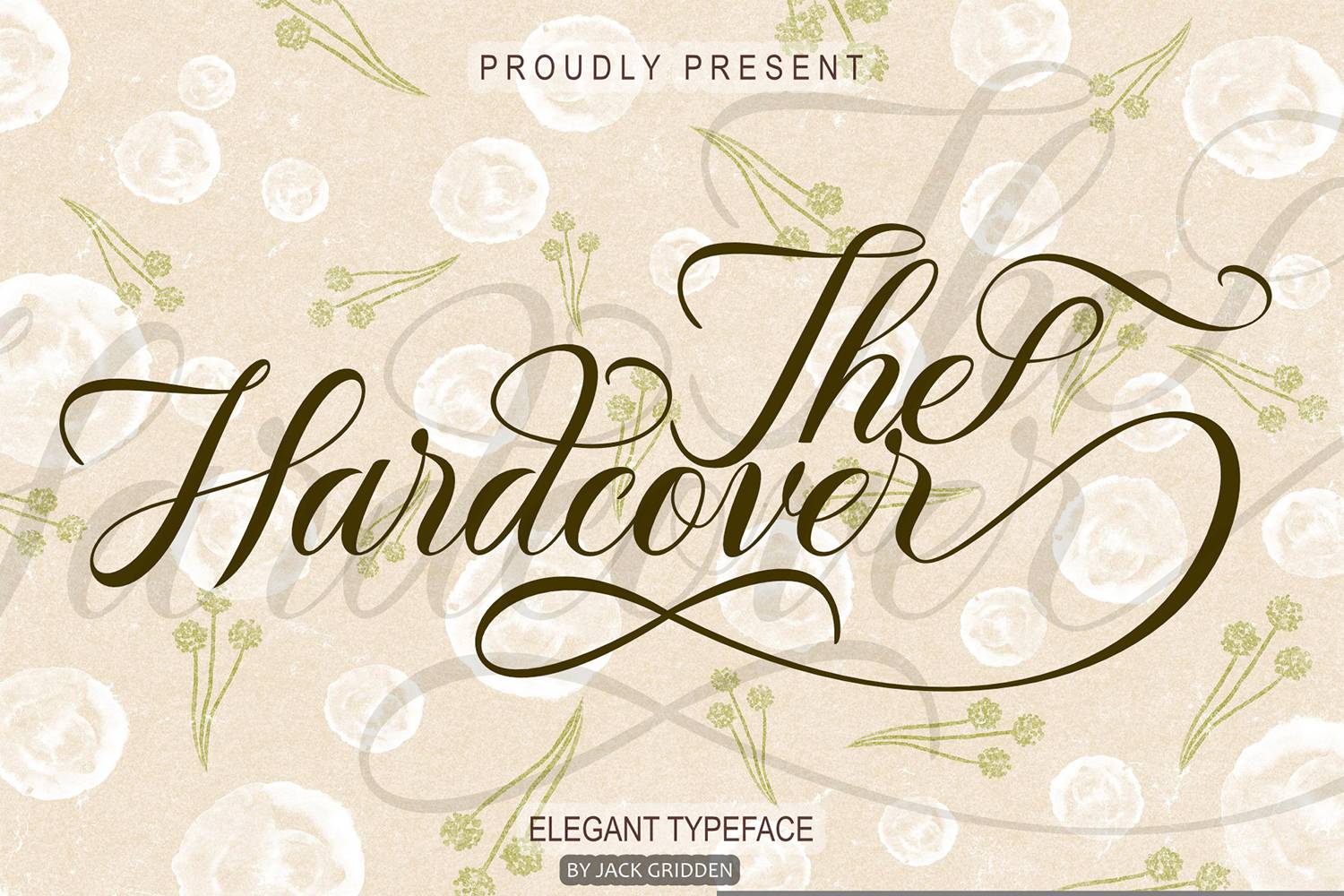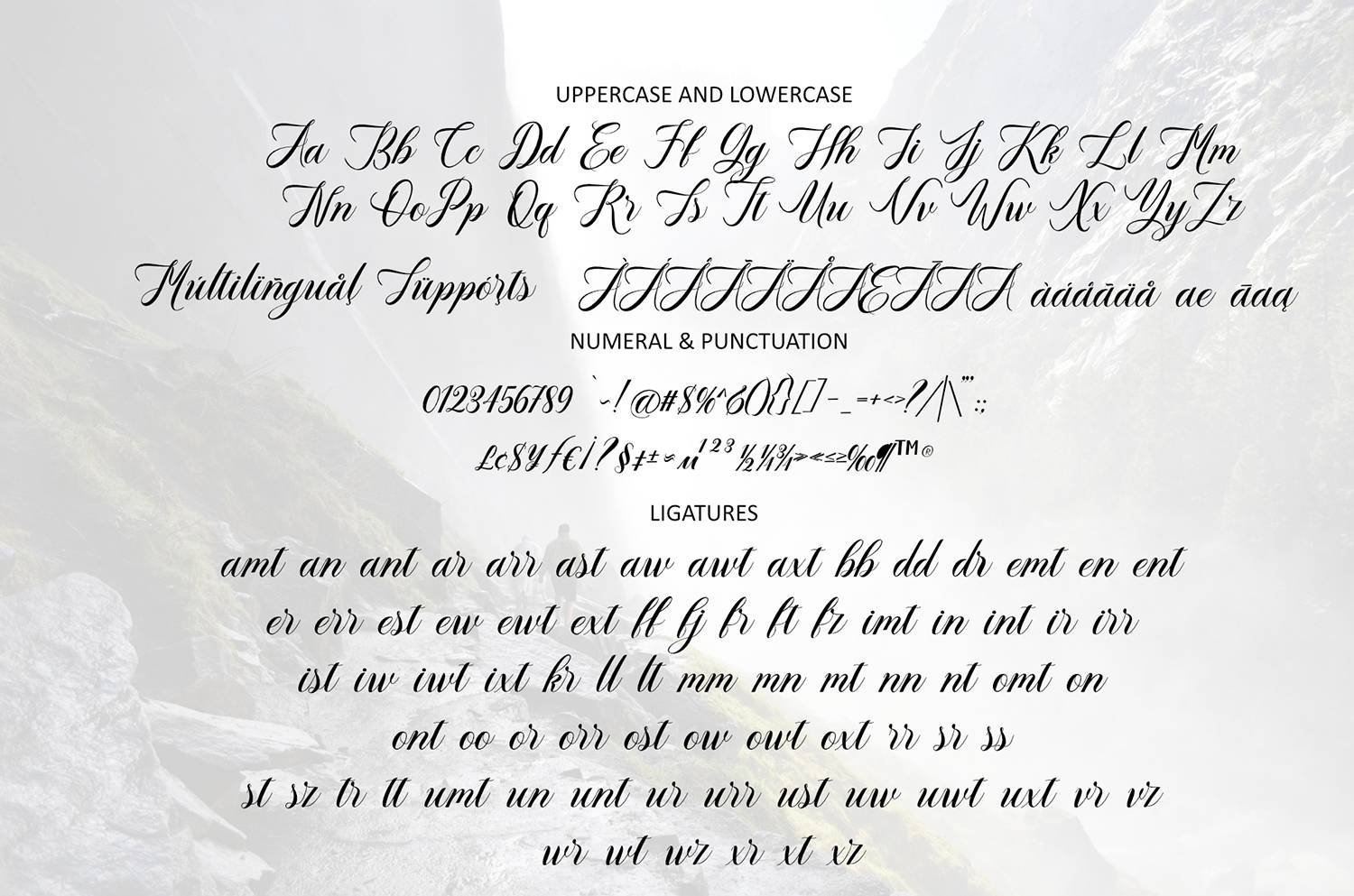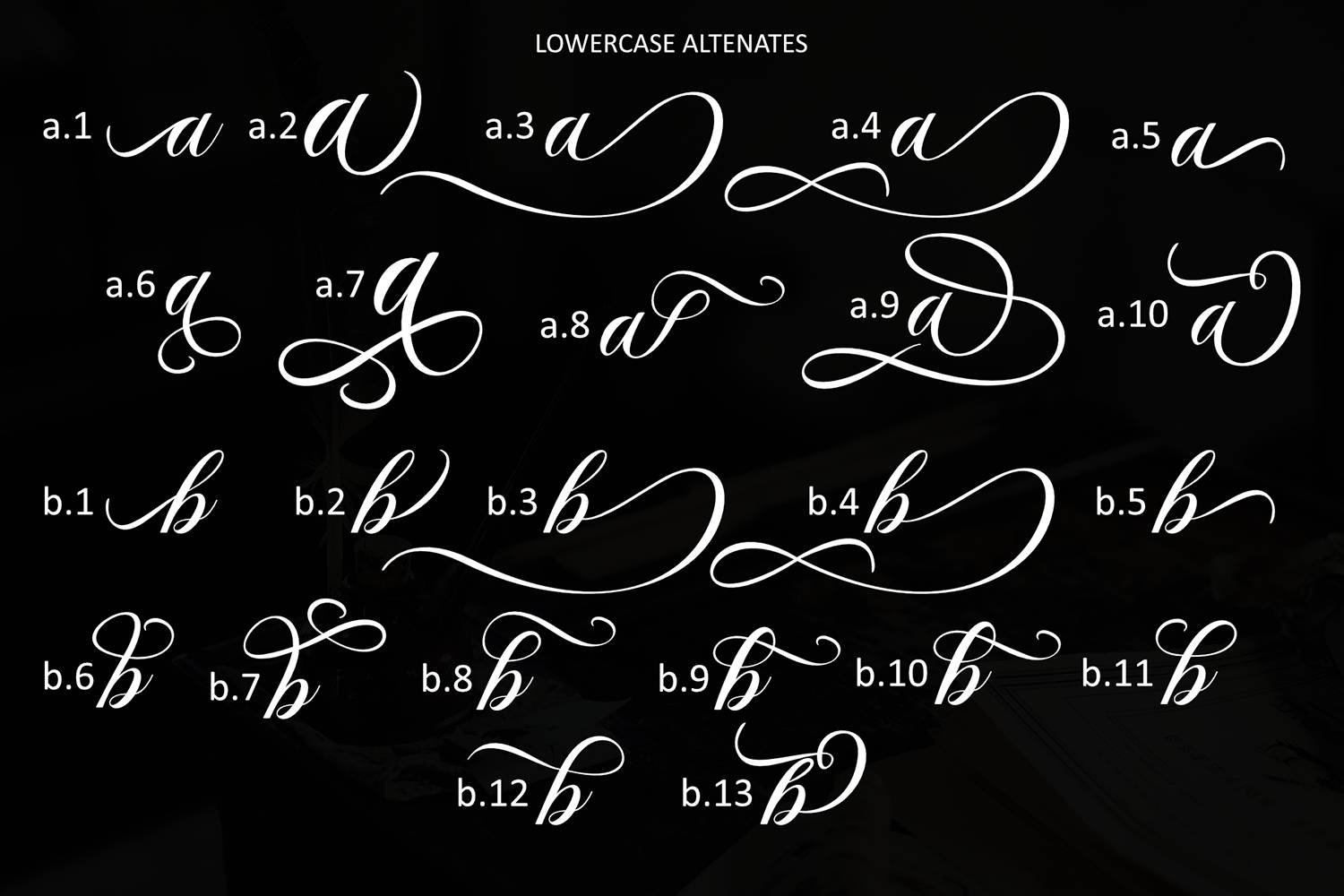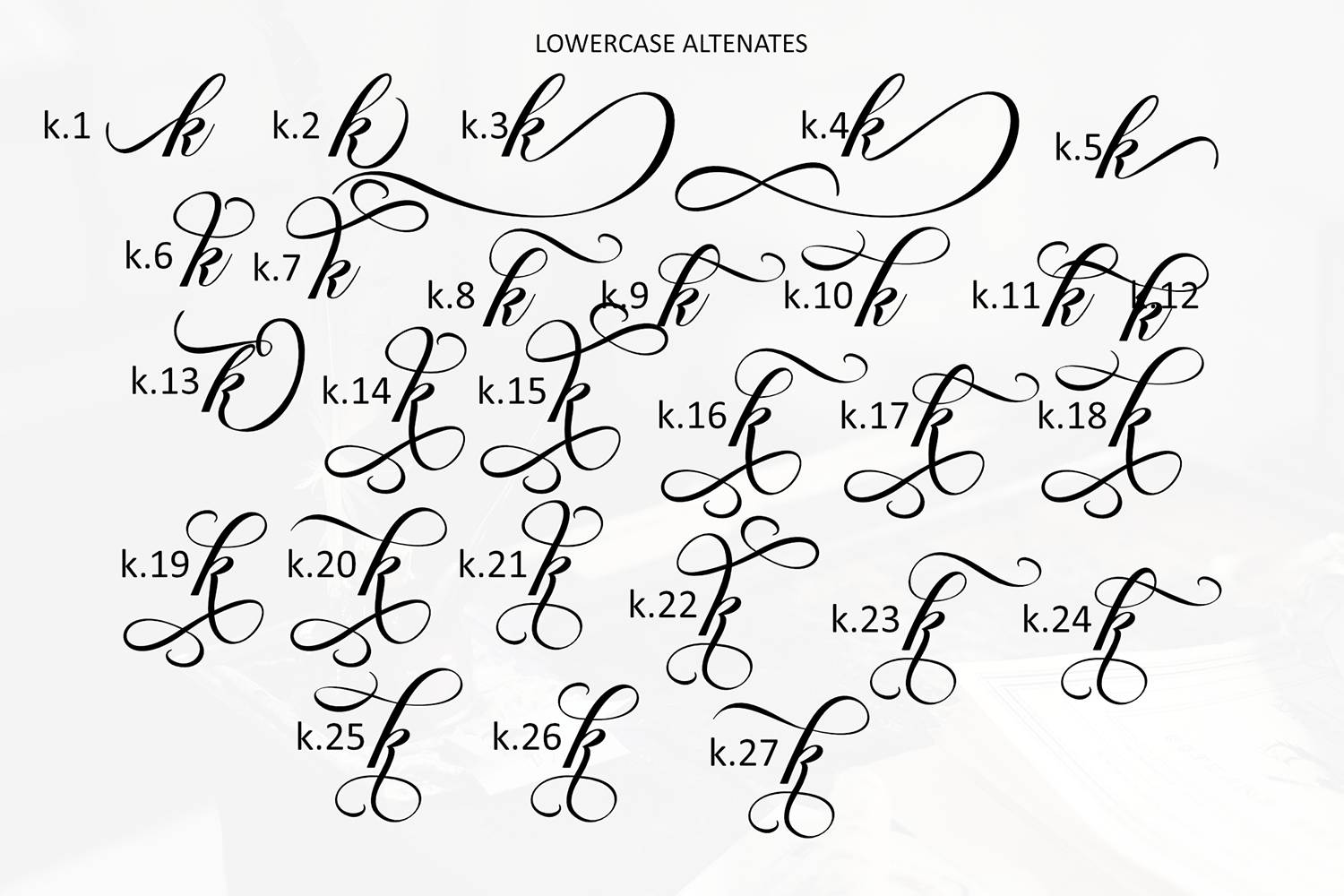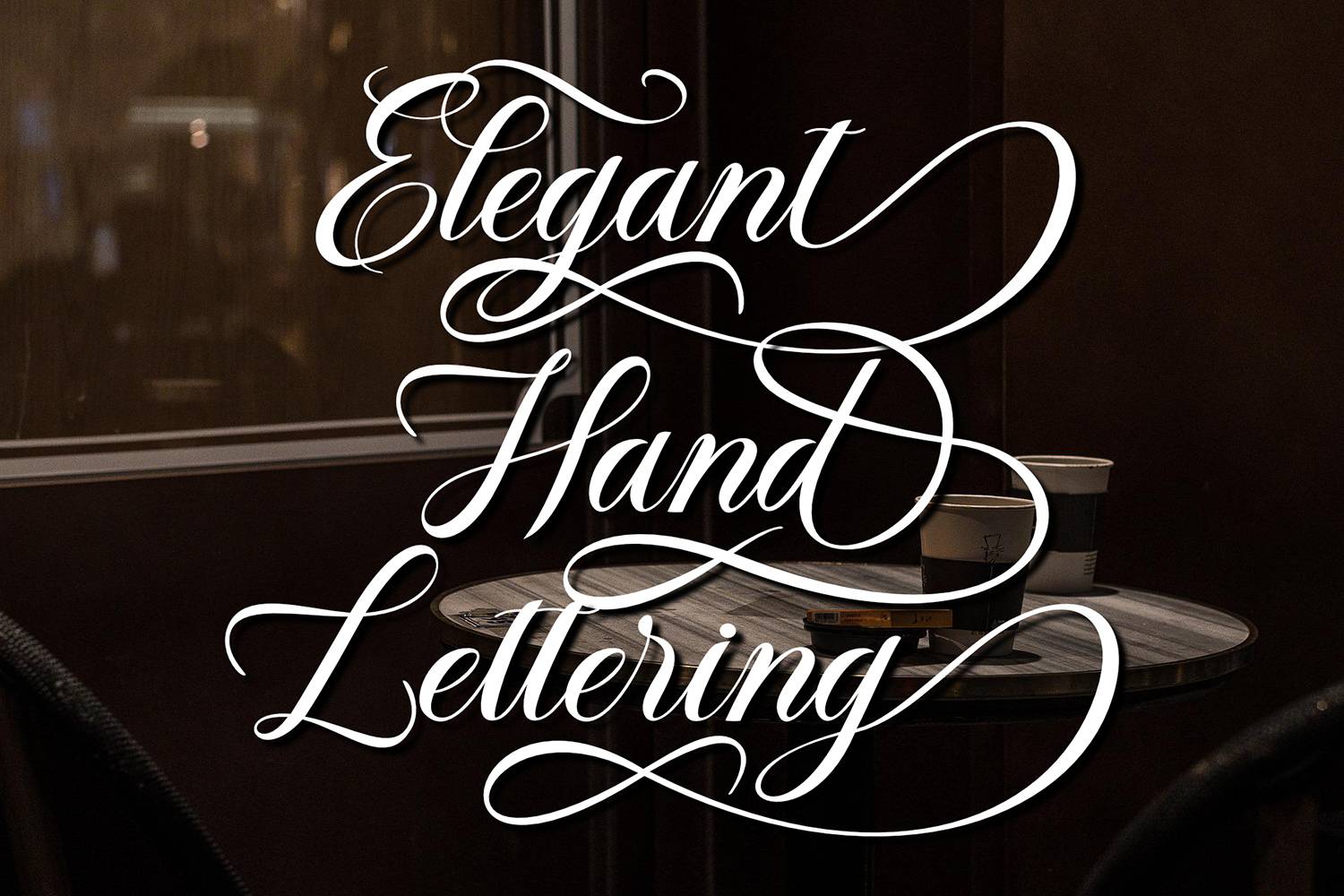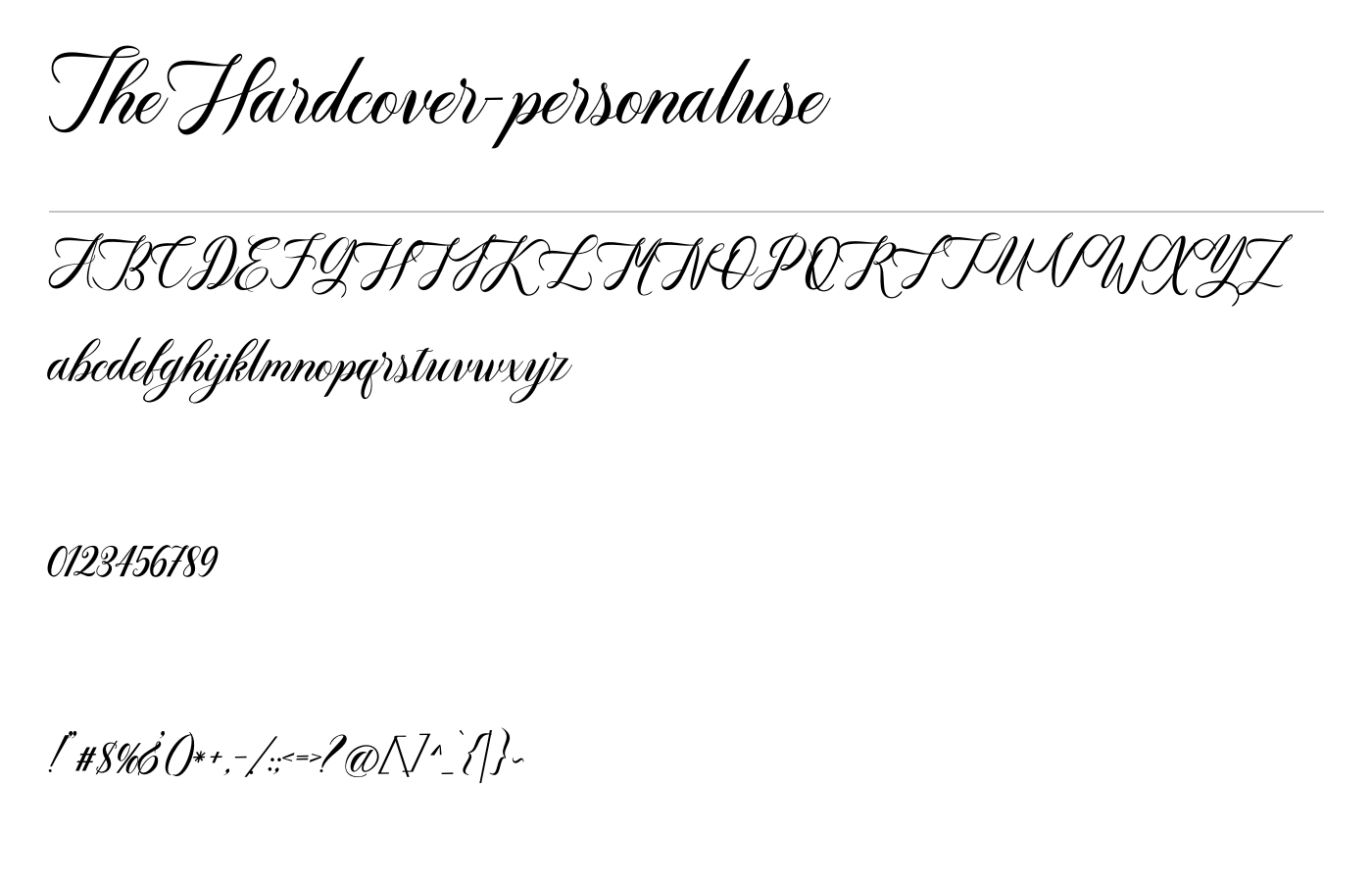
The Hardcover Font is an elegant and flowing script typeface with high contrast strokes and delicate, sharp curves, giving it a refined and sophisticated personality. Its narrow, slanted letterforms and fine details make it perfect for luxury branding, invitations, and stylish editorial headlines where a touch of grace and formality is desired. This font shines in settings that call for a handwritten feel with a polished, classic appearance.
The Hardcover Font
About The Hardcover Font
| Font family | The Hardcover Font |